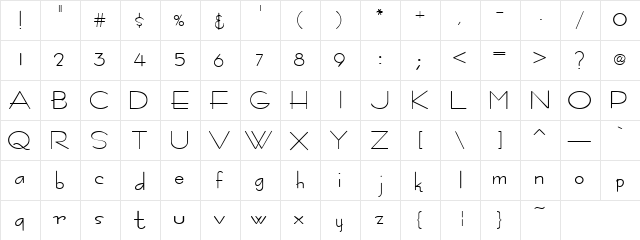
Base:Vacation Regular
Design Context for Base:Vacation Typeface
Base:Vacation is a composed and adaptable typeface that performs quietly and consistently across a wide range of design contexts.